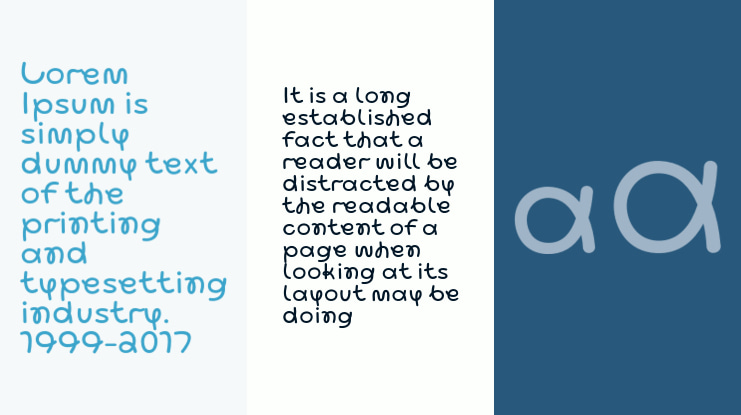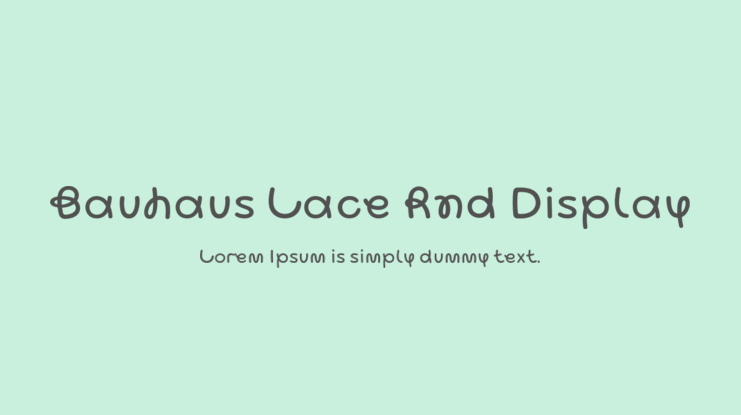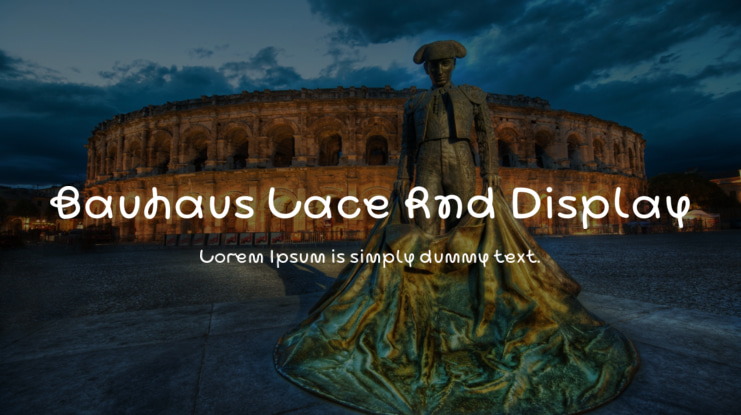
Bauhaus Lace Rnd Display Font Family
Saskia Ketz
Lace Rounded has a playful, handwritten feel. Makes perfect titles & logotypes for friendly brands, food, wedding, and kids projects.